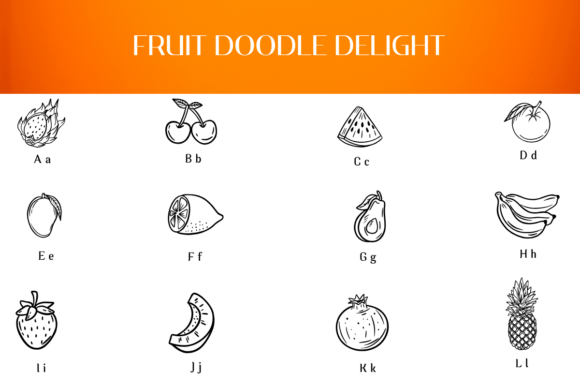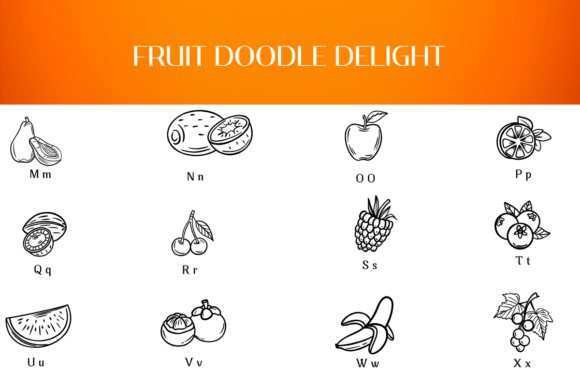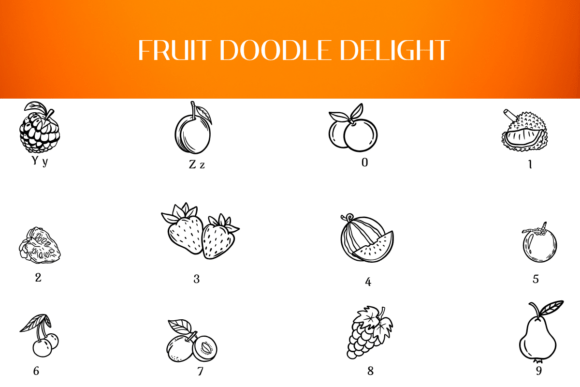
Introduction to Fruit Doodle Delight Font
As a designer, you’ve likely found yourself in a moment of creative frustration, staring at a blank canvas or screen, searching for the perfect visual element to bring your project to life. You want something that’s not only functional but also visually appealing and relevant to your theme. That’s where the Fruit Doodle Delight Font comes in – a game-changing resource that can elevate any creative project.
With its vast library of hand-drawn, whimsical fruit and berry line-art illustrations, this comprehensive Dingbats font is a dream come true for designers seeking a unique and high-quality design resource. Whether you’re working on packaging design, menu creation, educational materials, or health-related social media content, the Fruit Doodle Delight Font is an invaluable asset that can add a fresh, organic, and cute flair to your project.
Key Features of Fruit Doodle Delight Font
- Unique and playful design, perfect for creative projects and children’s materials
- High-quality font with transparent background, ideal for use on any design resource
- Vector-based design, scalable to any size without loss of quality
- Resolution-independent, suitable for use in various design applications and print materials
- Includes a wide range of characters, including uppercase and lowercase letters, numbers, and punctuation marks
Honest Review: Fruit Doodle Delight Font
I recently had the chance to play with the Fruit Doodle Delight Font, and I must say, it’s a delightful addition to any design project. This free download has been a game-changer for me, and I’m excited to share my thoughts on it.
What works well: ✨ The Fruit Doodle Delight Font is incredibly versatile, making it perfect for a wide range of creative projects. I’ve used it for everything from children’s party invitations to social media graphics. The transparent background feature is also a huge plus, allowing me to easily place the font over any image or design element.
What could be improved: ⚠️ While the font is high quality and visually appealing, I do wish it came in more weights and styles. Currently, it’s only available in a single weight, which can limit its use in certain design situations.
Overall impression: The Fruit Doodle Delight Font is a fantastic design resource that I would highly recommend to anyone looking for a fun and playful font for their next project. It’s free, easy to use, and looks amazing in a variety of contexts.
Pros:
- Transparent background feature
- High quality and visually appealing
- Perfect for a wide range of creative projects
Cons:
- Only available in a single weight
- Limited use in certain design situations
To maximize the potential of the Fruit Doodle Delight Font, experiment with different font sizes, colors, and combinations. This design resource is ideal for creating eye-catching graphics, logos, or social media posts.
The Fruit Doodle Delight Font is perfect for various design projects, including but not limited to, birthday invitations, wedding stationery, and children’s party materials. Its playful and colorful design makes it an excellent choice for any creative project.